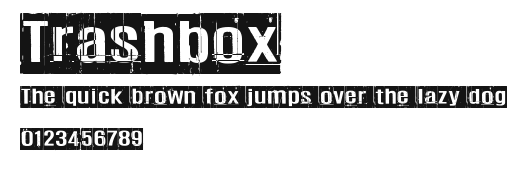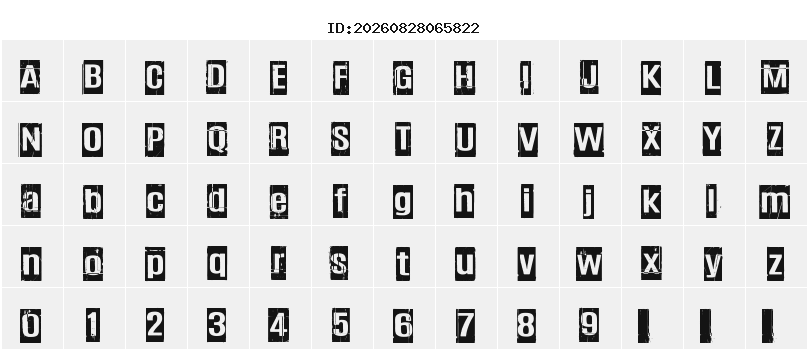
• Font Name: Trashbox
• Full Font Name: Trashbox
• Version: Version 1.00 June 17, 2016, initial release
• Designer: junkohanhero
About Trashbox.ttf
Trashbox.ttf is a modern, elegant sans-serif font designed for ultimate readability and visual harmony. Perfect for branding, headlines, web design, and print materials.